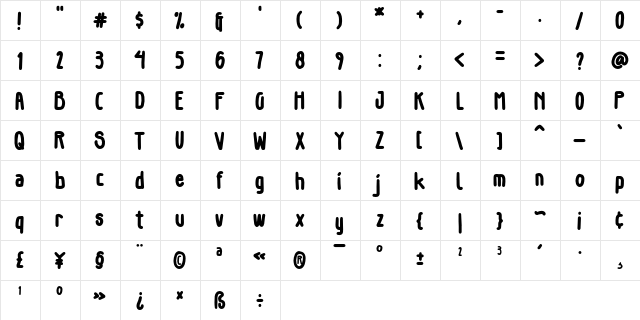
Gillphong Regular Font Preview
Gillphong Regular
Gillphong Regular Font Details
Design Context for Gillphong Typeface
Gillphong is a composed and adaptable typeface that performs quietly and consistently across a wide range of design contexts.